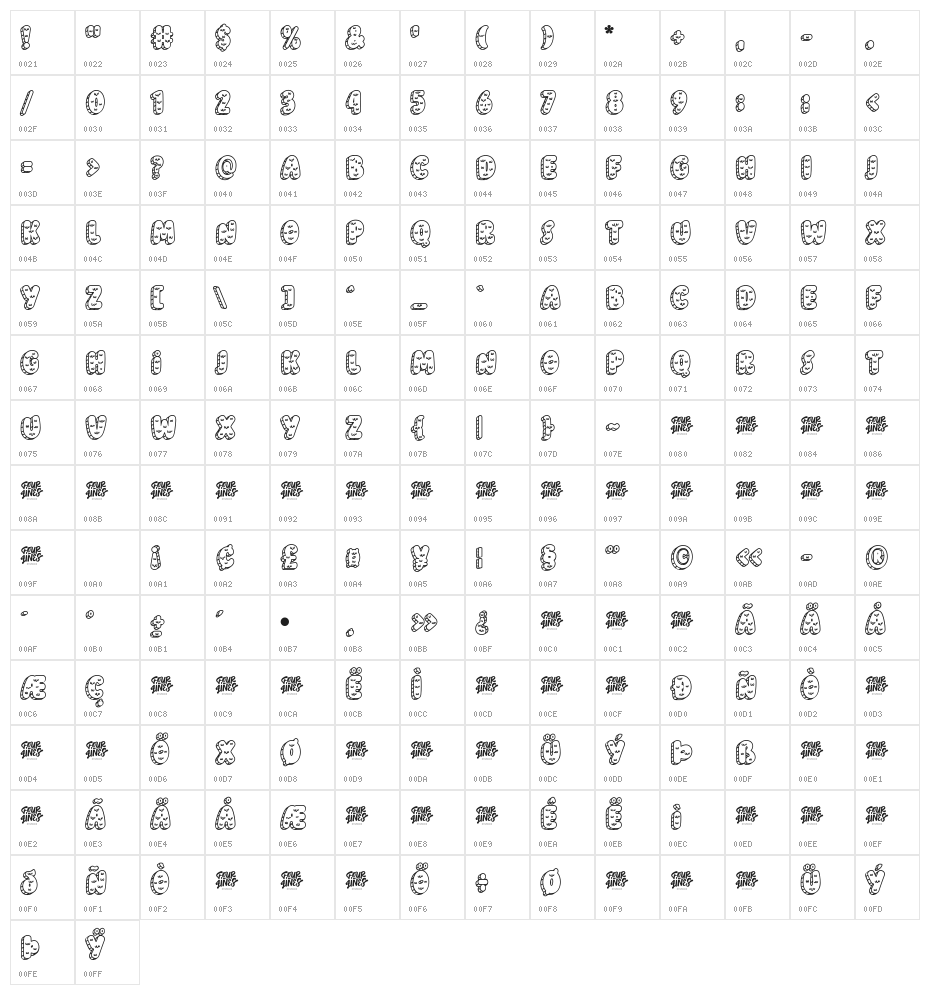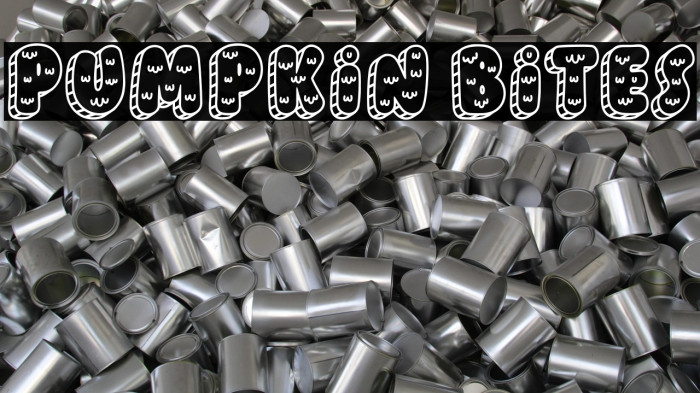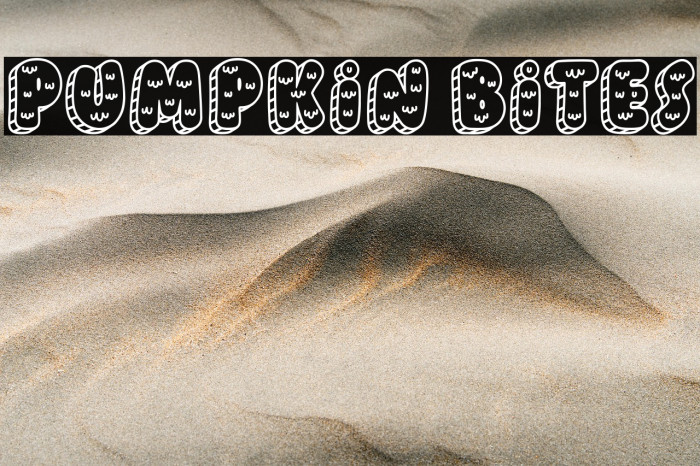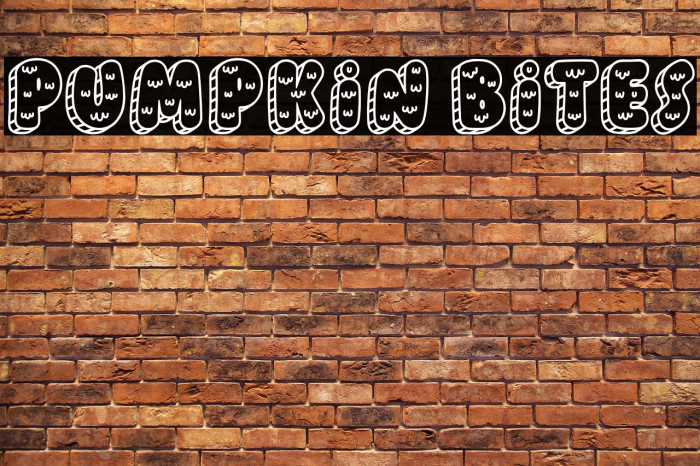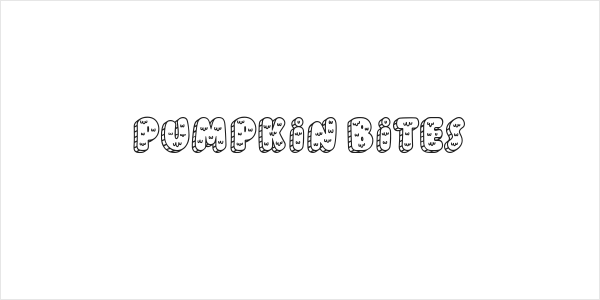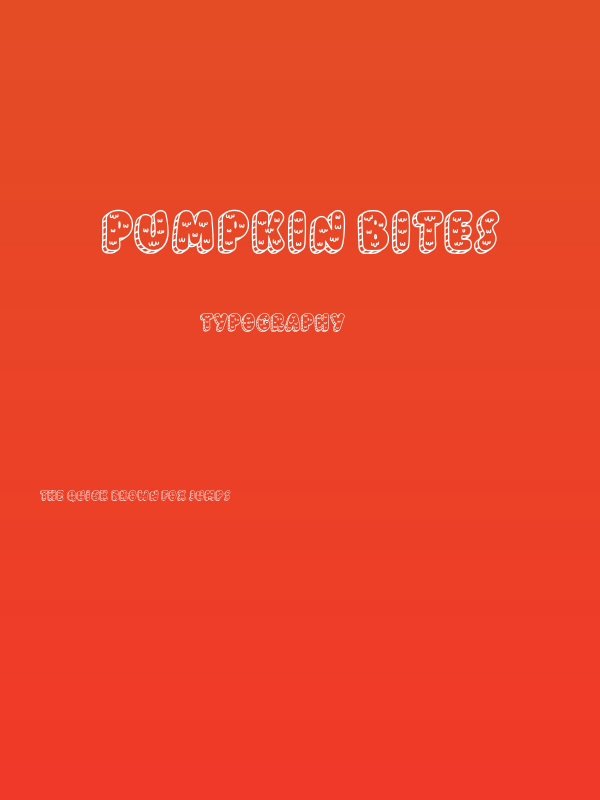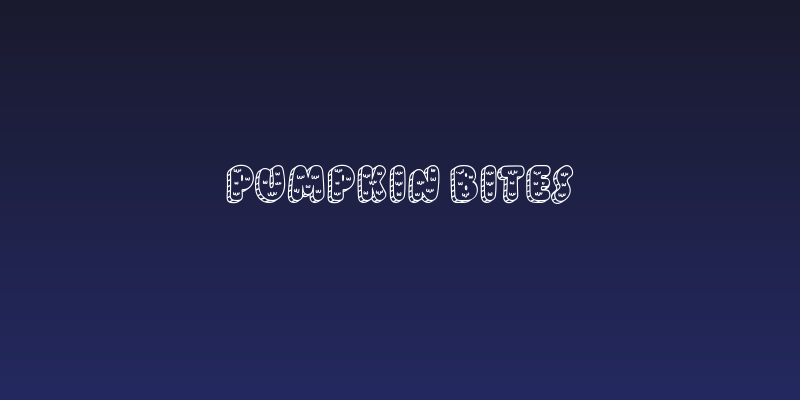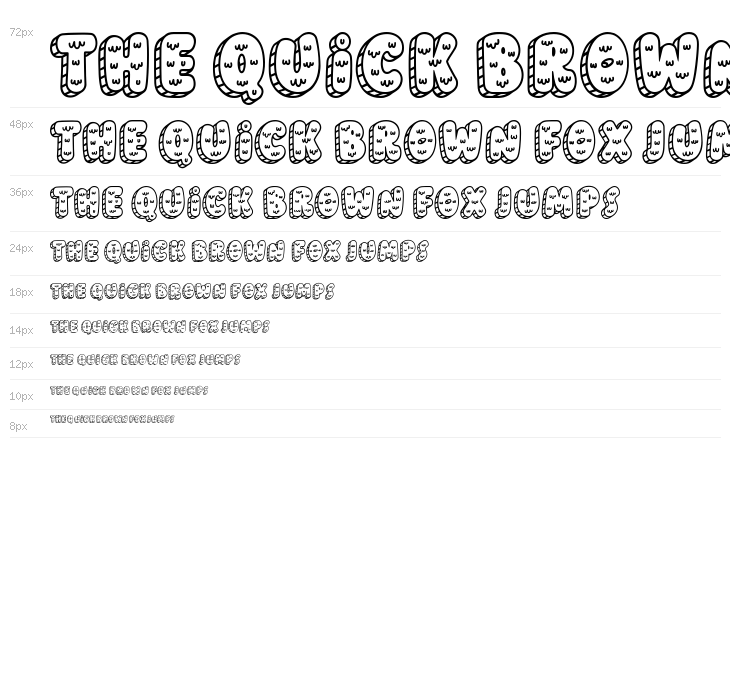
Pumpkin Bites Font
Pumpkin Bites Description
This playful and whimsical font features bold, rounded characters with a unique, bubbly texture that resembles dripping or melting patterns. Each letter and number is outlined, adding a cartoonish and fun element to the overall design. The font is highly decorative, making it ideal for projects that require a touch of humor and creativity. Its distinct style is perfect for capturing attention and conveying a lighthearted, festive mood. The characters are evenly spaced, ensuring readability while maintaining their quirky charm.
| Proposed Projects | Ideal for children's books, Halloween-themed designs, party invitations, and playful branding. |